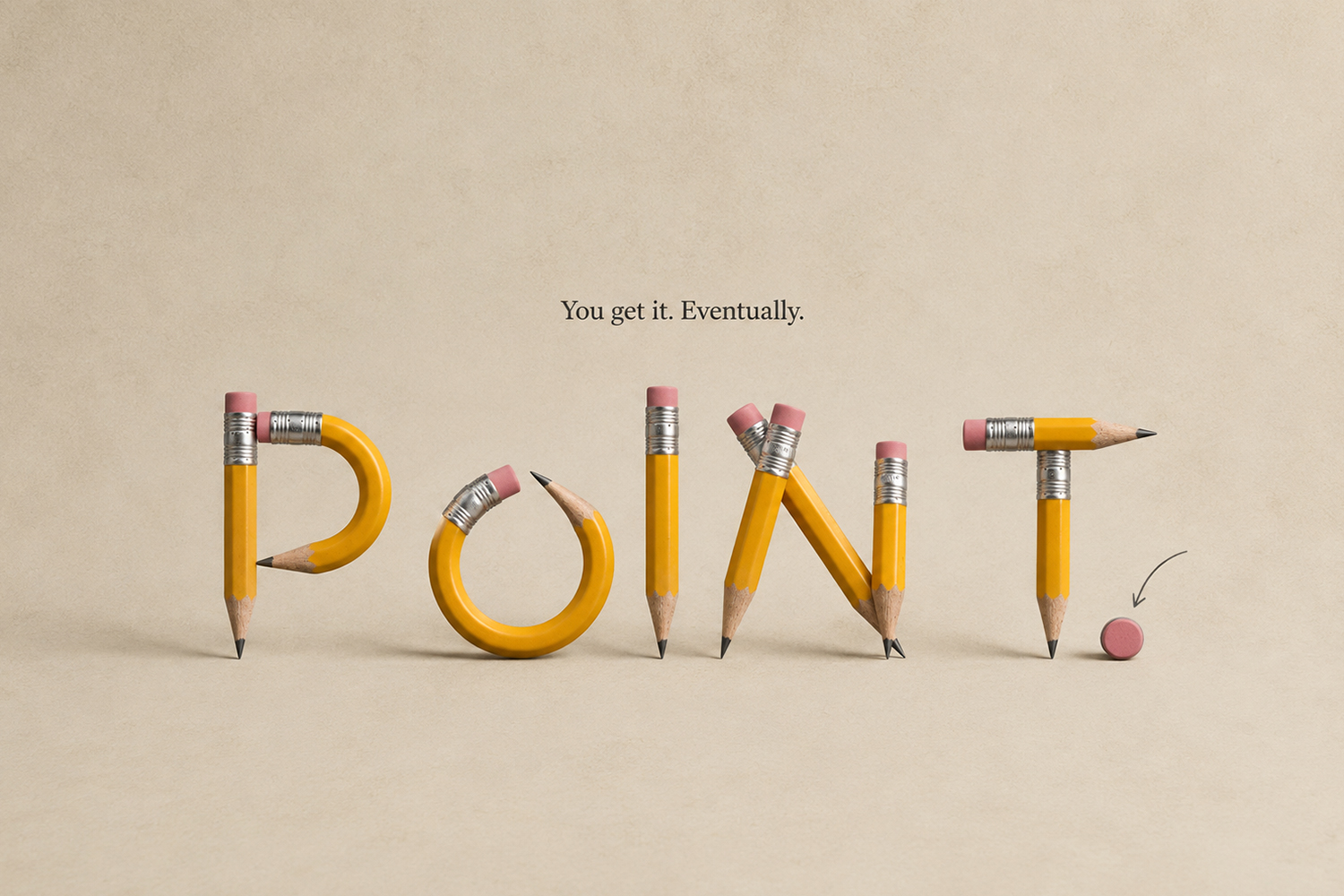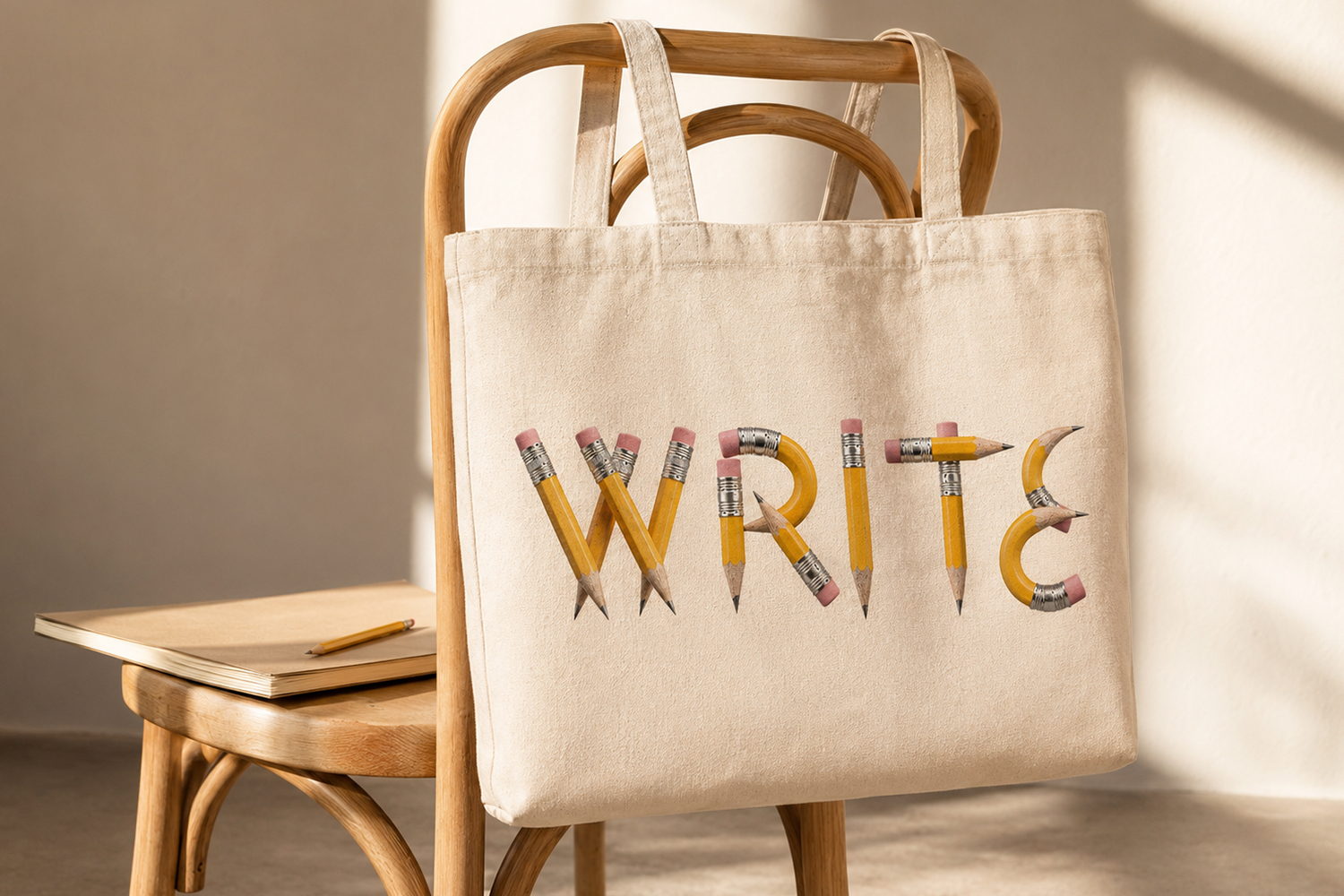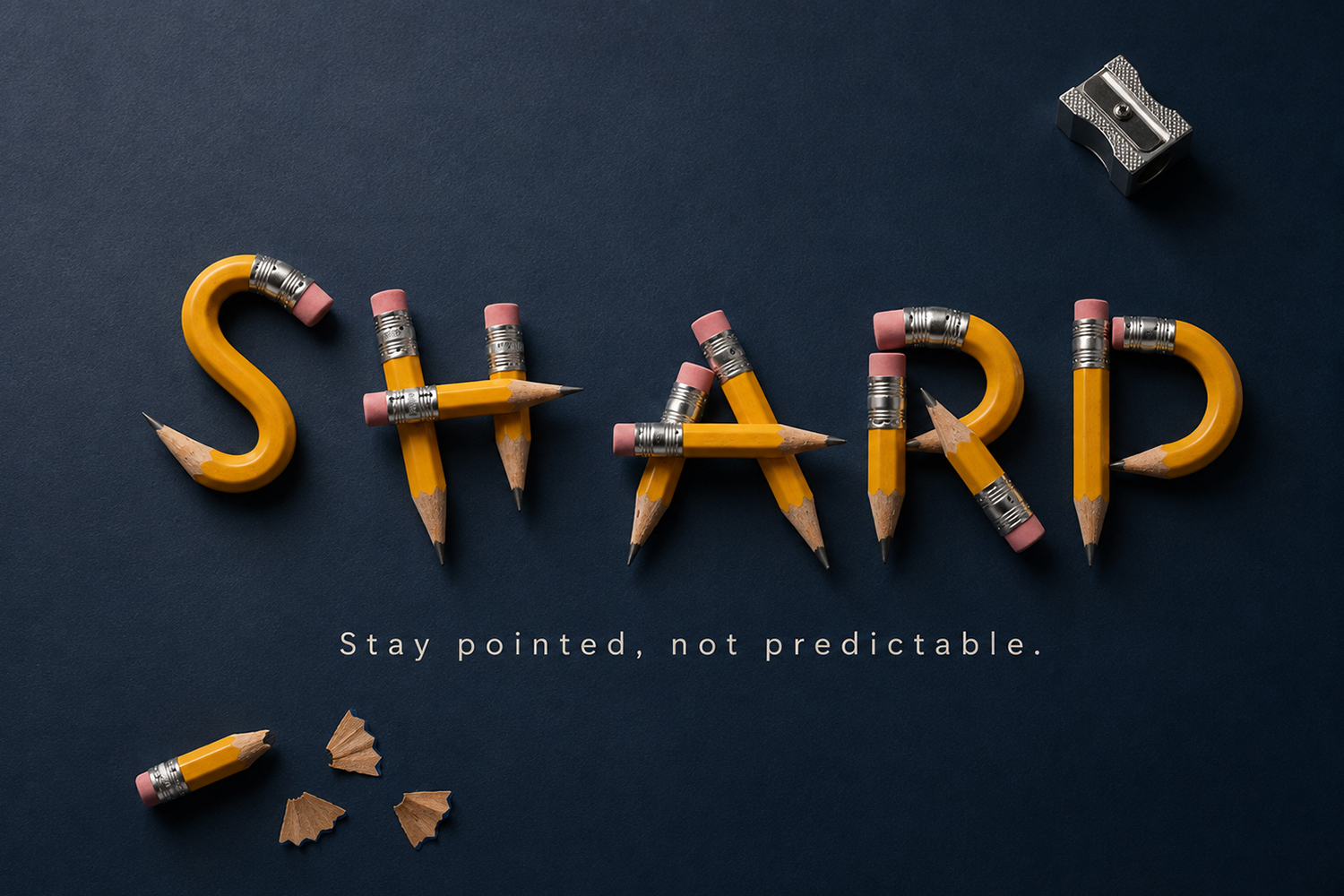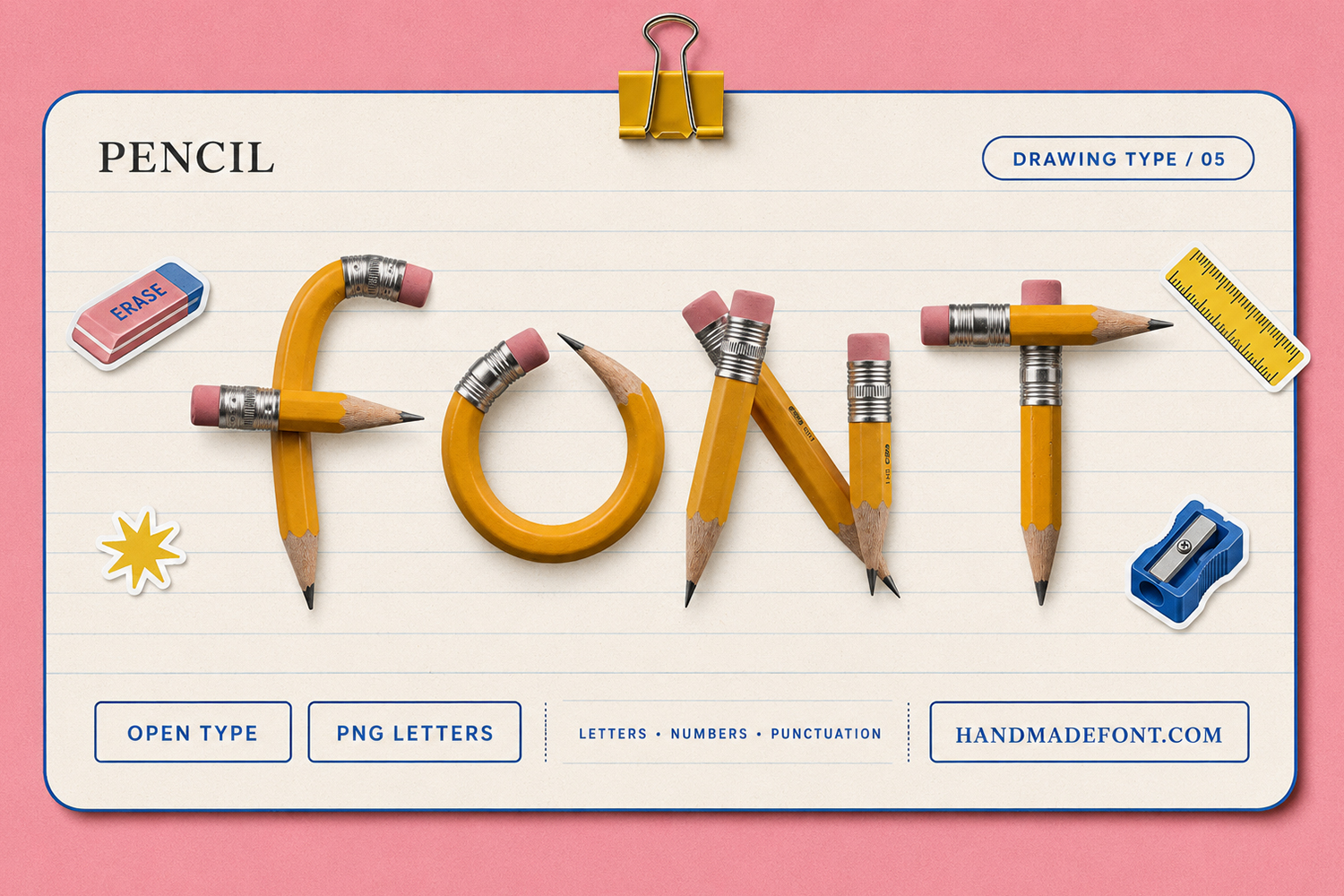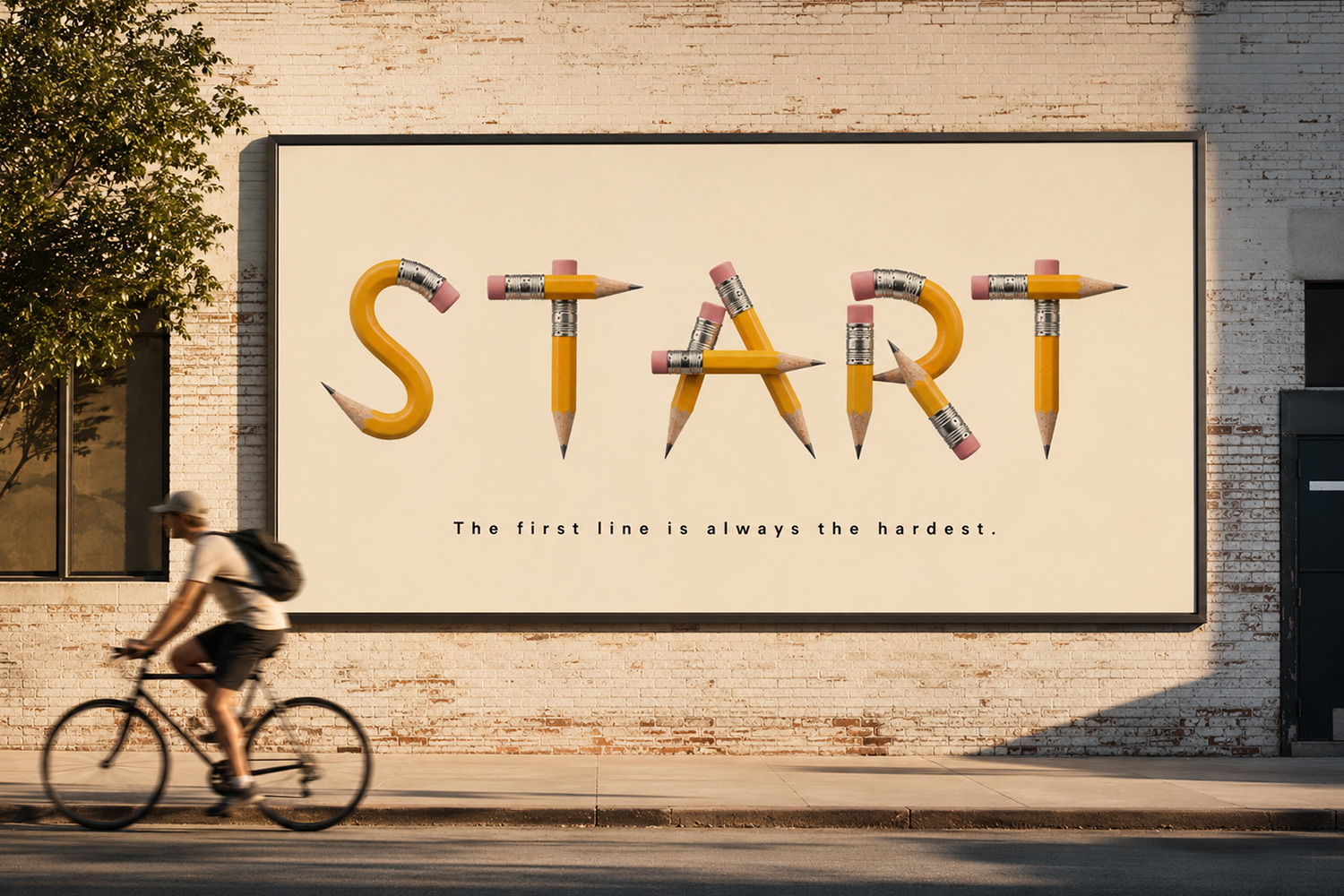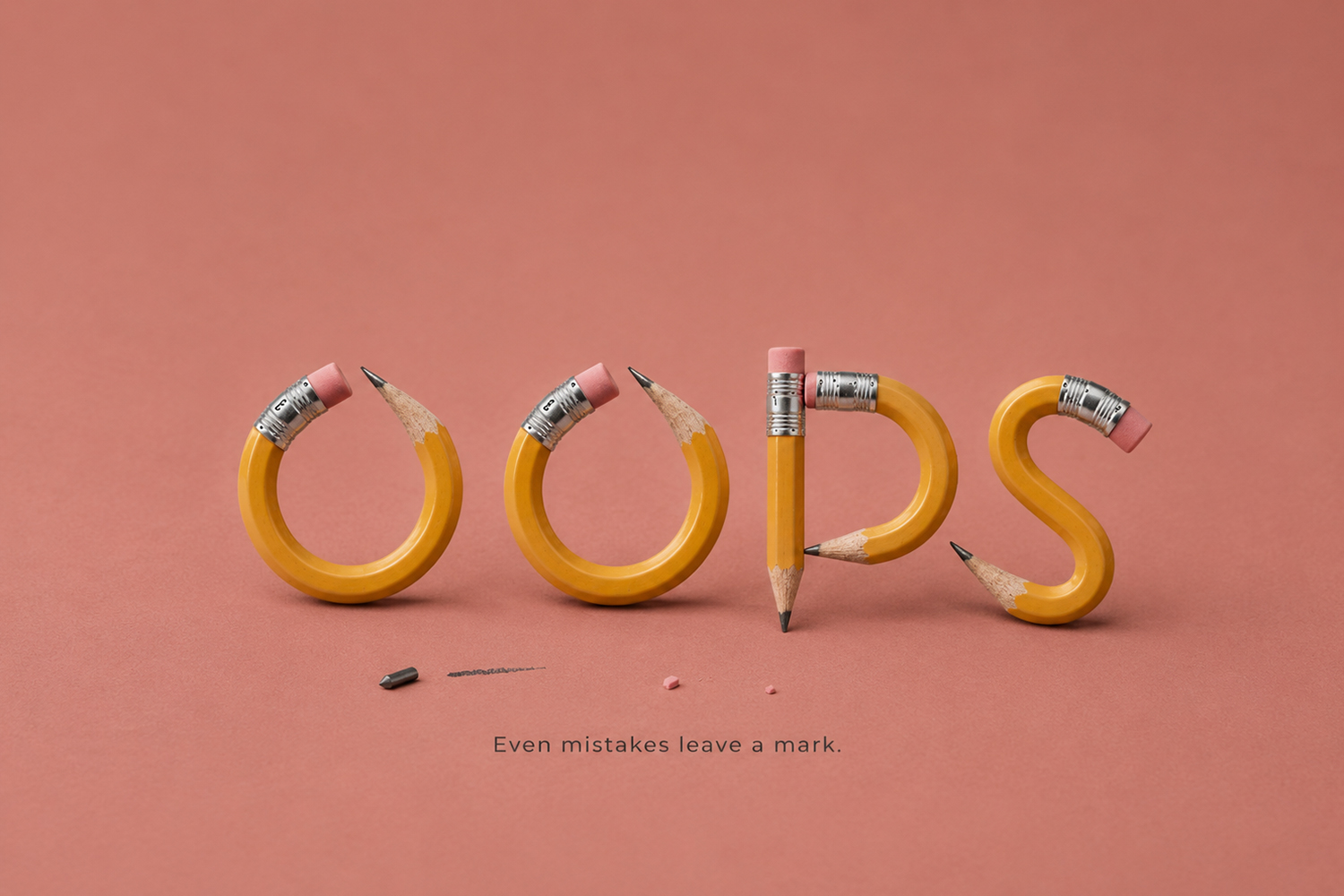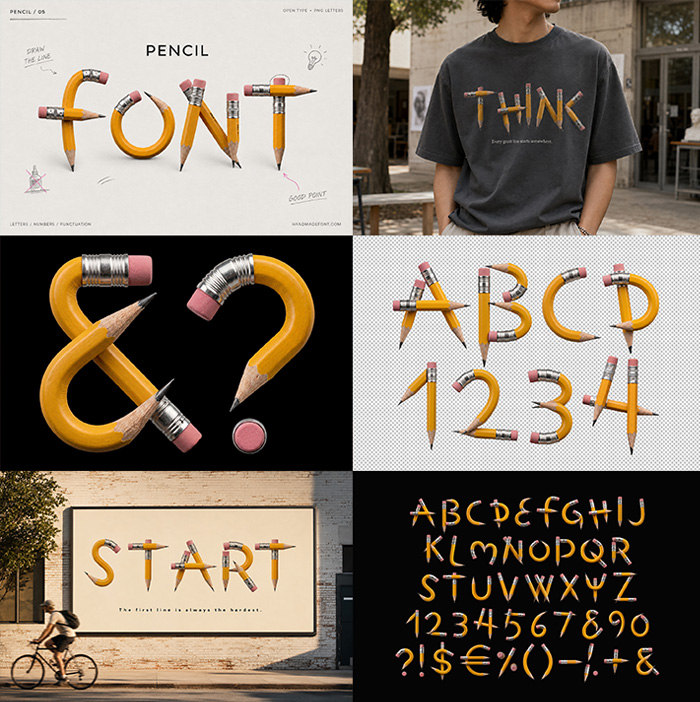
Pencil Font – Creative Typeface Made from Pencils
Pencil Font transforms the familiar shape of a yellow pencil into an imaginative typeface full of character. Curved bodies, sharpened tips, metal ferrules and pink erasers become expressive letterforms with realistic textures and playful details. The set includes an OTF font plus individual PNG letters on transparent backgrounds, ready for posters, branding, editorial design, education projects and creative typography.
Pencil Font Made from an Everyday Object
Pencil Font reimagines a simple, everyday tool as a complete typographic system. Instead of copying pencil marks or casual handwriting, each letter borrows the real shape of a classic yellow pencil. Because of that, sharpened wooden tips, graphite points, metal ferrules and pink erasers all become part of the letterforms. Consequently, the alphabet feels tactile, playful and instantly recognizable. Meanwhile, careful shading and realistic materials also give every character a strong visual identity.
Pencil Font presentation
Realistic Pencil Textures and Playful Letterforms
Every character explores a different way a pencil can bend, cross or curve to form a letter. Similarly, some shapes rely on a single continuous pencil, while others combine several pieces into more complex constructions. Even numbers and punctuation follow this same visual language. Overall, this approach brings a handmade spirit without relying on ordinary handwritten lettering. In other words, the object itself becomes the typography.
Typography for Creative Ideas
With its familiar material and playful construction, Pencil Font suits education, stationery, school projects, editorial layouts, posters, advertising, packaging, children’s design and creative branding. It can also add humor to a simple headline or anchor an entire composition.
Pencil Font lettering made from realistic yellow pencils
Pencil Font alphabet, numbers and punctuation made from pencils
Pencil Font – Erase Typography
DRAW poster using Pencil Font made from realistic pencils
Pencil Font ampersand and question mark on black background
Pencil Font displayed on a playful stationery-inspired layout
START billboard featuring realistic Pencil Font lettering
Pencil Font – OOPS Creative Lettering
IDEA lettering in Pencil Font inside an editorial magazine layout
Pencil Font – POINT Typography
THINK typography in Pencil Font printed on a dark T-shirt
Pencil Font – YES Creative Typography
WRITE lettering in Pencil Font printed on a canvas tote bag
Pencil Font – SHARP Creative Lettering
Pencil Font PNG letters and numbers on transparent backgroun
Pencil Font wordmark made from realistic yellow pencil letters